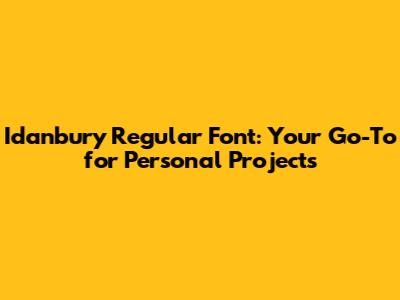
Idanbury Regular Font: Perfect For Personal Projects
Hey there, fellow creatives! Ever stumbled upon a font that just speaks to you? Well, let me introduce you to Idanbury Regular Font ā a versatile and stylish choice thatās perfect for all your personal projects. Whether you're a seasoned graphic designer, a budding web designer, or just someone who loves to dabble in creative endeavors, Idanbury Regular can be a game-changer. This article dives deep into the world of Idanbury Regular, exploring its features, ideal use cases, and everything else you need to know to make the most of it. So, buckle up, and let's get into the nitty-gritty of this awesome font! We'll explore everything from its design principles to how it fits into the broader landscape of typography. You'll learn how to leverage Idanbury Regular to enhance your personal projects, making them stand out with style and sophistication. Trust me, by the end of this read, you'll be itching to download and start using it!
Idanbury Regular Font isn't just another font; it's a carefully crafted design with a unique personality. Its regular weight offers a clean and balanced look, making it incredibly versatile for various applications. From crafting stunning social media graphics to designing personal websites or even creating eye-catching invitations, Idanbury Regular fits the bill. The beauty of this font lies in its simplicity. Itās not overly complex, which means itās easy to read and works well in different sizes. This makes it a great choice for both body text and headlines. When it comes to font design, details matter. The curves, the spacing, the weight ā every aspect is carefully considered to create a harmonious visual experience. Idanbury Regular excels in this department, offering a polished and professional look that elevates your design work. But letās not just take my word for it; weāll explore real-world examples and practical tips to get you started.
Understanding Idanbury Regular: Features and Design
Alright, letās get down to the basics. What exactly makes Idanbury Regular special? Well, it's all in the details. The font is characterized by its clean lines, balanced proportions, and a hint of modern flair. The careful attention to detail in its design makes it suitable for a wide range of applications, from digital to print. One of the key features of Idanbury Regular is its readability. In a world saturated with information, having a font that is easy on the eyes is crucial. Its design ensures that it remains legible, even at smaller sizes or on screens with lower resolutions. This makes it an ideal choice for body text in your projects. The fontās design also lends itself to excellent kerning and spacing. The spaces between letters and words are optimized to create a smooth reading experience. This is vital for maintaining the flow of your content and keeping your audience engaged. The consistent design across all characters means that the visual consistency enhances the overall look and feel of your designs. This consistency helps create a cohesive and professional appearance, which is essential for projects ranging from personal blogs to portfolio websites. Moreover, its versatility is a major plus. Whether you are creating a minimalist design or a more elaborate layout, Idanbury Regular adapts effortlessly. Its neutral style ensures that it complements various design aesthetics, allowing you to focus on your creative vision. Itās important to note that the fontās aesthetic isnāt just about the way it looks; itās about how it feels. The designers considered every aspect of the font to create a feeling that aligns with your message. Whether you are aiming for a sense of professionalism, creativity, or even fun, the font's design subtly contributes to achieving that effect.
Best Uses for Idanbury Regular in Personal Projects
So, where can you actually use Idanbury Regular? The beauty of this font lies in its adaptability. Itās like a Swiss Army knife for your design toolkit. Itās the kind of font that works in the background, subtly enhancing your message without overpowering the design. Letās dive into some specific applications where Idanbury Regular shines. For starters, imagine you're a blogger. The font is perfect for your website's body text. It provides a clean and comfortable reading experience, keeping your readers hooked on your content. Plus, its versatility means it pairs well with various other fonts, making it simple to create attractive headings and subheadings. If youāre into creating social media graphics, Idanbury Regular is your best friend. Its clear and modern design makes your captions and quotes pop, ensuring they grab attention. Whether you are designing posts for Instagram, Facebook, or any other platform, the font ensures that your message is clear and your graphics look professional. Also, let's say you're planning a special event ā a birthday, a wedding, or a party. Idanbury Regular is a fantastic choice for invitations and announcements. Its elegance and simplicity make your announcements look sophisticated and easy to read. You can use it for the main text, the dates, the locations ā everything! If you are a student or a writer, using this font can also be a great choice for your personal documents. It's clean and easy to read, which can help your content feel more organized and professional. This can also apply to creating reports, presentations, or even personal journals.
Font Pairing and Complementary Styles with Idanbury Regular
Alright, letās talk about how to make Idanbury Regular play nicely with others. Because, letās face it, one font canāt do it all! The art of font pairing is about creating visual harmony. Choosing the right complementary fonts can elevate your designs and make them more engaging. With Idanbury Regular, you have a solid foundation to build upon. One popular pairing strategy is to combine a sans-serif font like Idanbury Regular with a serif font for a classic look. The contrast between the clean lines of Idanbury Regular and the more traditional serifs creates a balanced and sophisticated aesthetic. Think of something like a classic Times New Roman or Georgia. If you are going for a more modern vibe, try pairing Idanbury Regular with another sans-serif font that has a contrasting style. You could use a bolder font for headings and a lighter, more streamlined font for body text. This creates visual interest while keeping your design clean and readable. The key is to find fonts that complement each other, not compete. Another great option is to use a display font for headlines and Idanbury Regular for body text. Display fonts are often more decorative and creative, which can add personality to your design. By pairing it with a simple font like Idanbury Regular, you balance boldness with readability, ensuring your content is both visually appealing and easy to understand. Keep contrast in mind: consider the weight, size, and style of the fonts you choose. Too much similarity can make your design look bland, while too much contrast can be distracting. Balance is key. Experiment! Try different combinations and see what works best for your project. Often, the best pairings are discovered through trial and error.
Tips for Effective Use of Idanbury Regular
To really make Idanbury Regular shine in your projects, here are some pro tips! First things first, keep it clean. Avoid overcrowding your designs with too much text or unnecessary elements. The simplicity of Idanbury Regular is its strength, so let it breathe. Use negative space to your advantage. Proper spacing around your text and other design elements can greatly improve readability and visual appeal. This will draw attention to the most critical information in your project. When choosing sizes, always consider the context. Make sure the font size is appropriate for the medium and the target audience. The font should be large enough to read without straining the eyes, but not so large that it overwhelms the layout. Experiment with different weights. Idanbury Regular typically comes in multiple weights (light, regular, bold, etc.). Playing with these can create hierarchy and visual interest. Use bold for headings, regular for body text, and maybe light for smaller details. Kerning (the space between individual letters) and tracking (the space between groups of letters) can also make a huge difference. These are fine-tuning adjustments that can help you achieve perfect readability and visual balance. Be mindful of the background. Always ensure your font has enough contrast against the background color. Dark text on a light background is often best for readability, but there can be exceptions. Always test your design on different devices and screens to ensure readability. Finally, itās all about consistency. Once youāve chosen your fonts, sizes, and styles, stick with them throughout your project. This consistency creates a cohesive and professional look that ties everything together nicely. With these tips, you're well on your way to mastering the art of using Idanbury Regular.
Conclusion: Embracing Idanbury Regular for Your Creative Journey
So, there you have it, folks! We've covered everything from the design features to practical tips on how to use Idanbury Regular effectively. This versatile font is a fantastic choice for anyone looking to add a touch of elegance and readability to their personal projects. Whether you're designing a website, creating social media graphics, or just sprucing up your personal documents, Idanbury Regular is a reliable option. It's clean lines, excellent readability, and versatile nature make it a go-to choice for a wide range of applications. Now go forth and create! Download Idanbury Regular, experiment with different font pairings, and let your creativity flow. Remember to keep the license in mind, give credit where it's due, and most importantly, have fun with it. Happy designing!